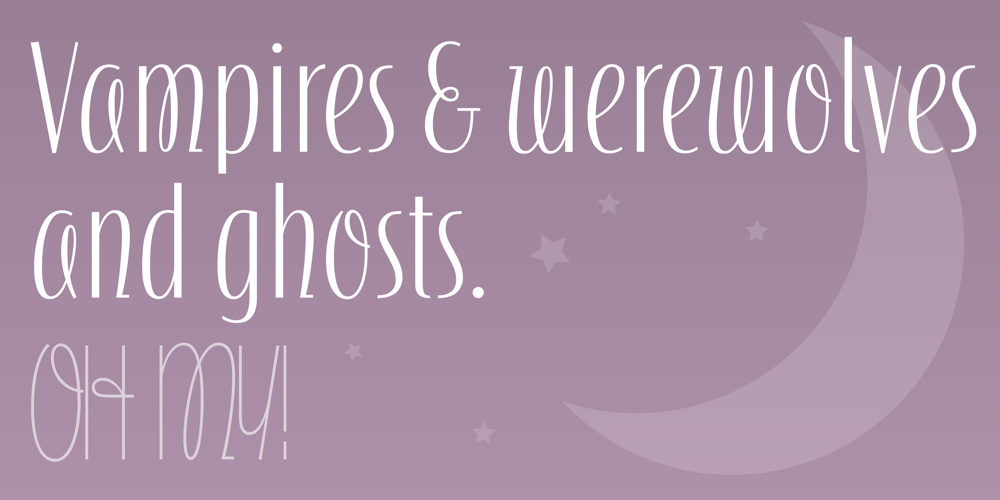
ITC Silvermoon Font Family was designed by Akira Kobayashi and published by ITC. ITC Silvermoon contains 2 styles and family package options. ITC Silvermoon was designed by Akira Kobayashi in the style of the advertisements of the 1920s. Art Deco was the artistic movement which marked the years between the two world wars, combining elements of Jugenstil, futurism and east Asian influences. This font carries on in that tradition. The small, high reaching figures with their elegant forms and reserved but distinguishing loops give Silvermoon its unmistakable look. Kobayashi designed this font in two weights, regular and bold. To retain the elegance of the bold weight, the consistent stroke width of the regular weight was exchanged for contrasting strokes. This gives the weight more weight without detracting from its grace. The nostalgic, romantic ITC Silvermoon is best used for headlines and short texts in point sizes of 12 and larger.